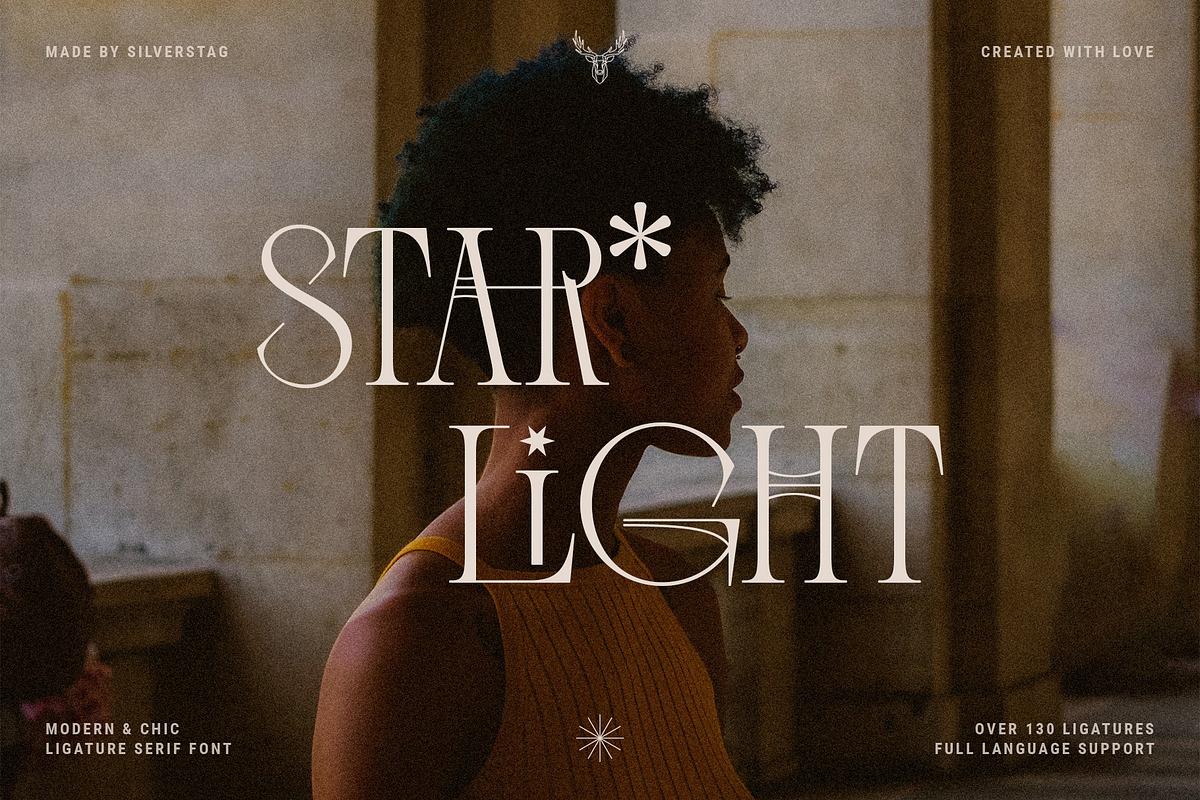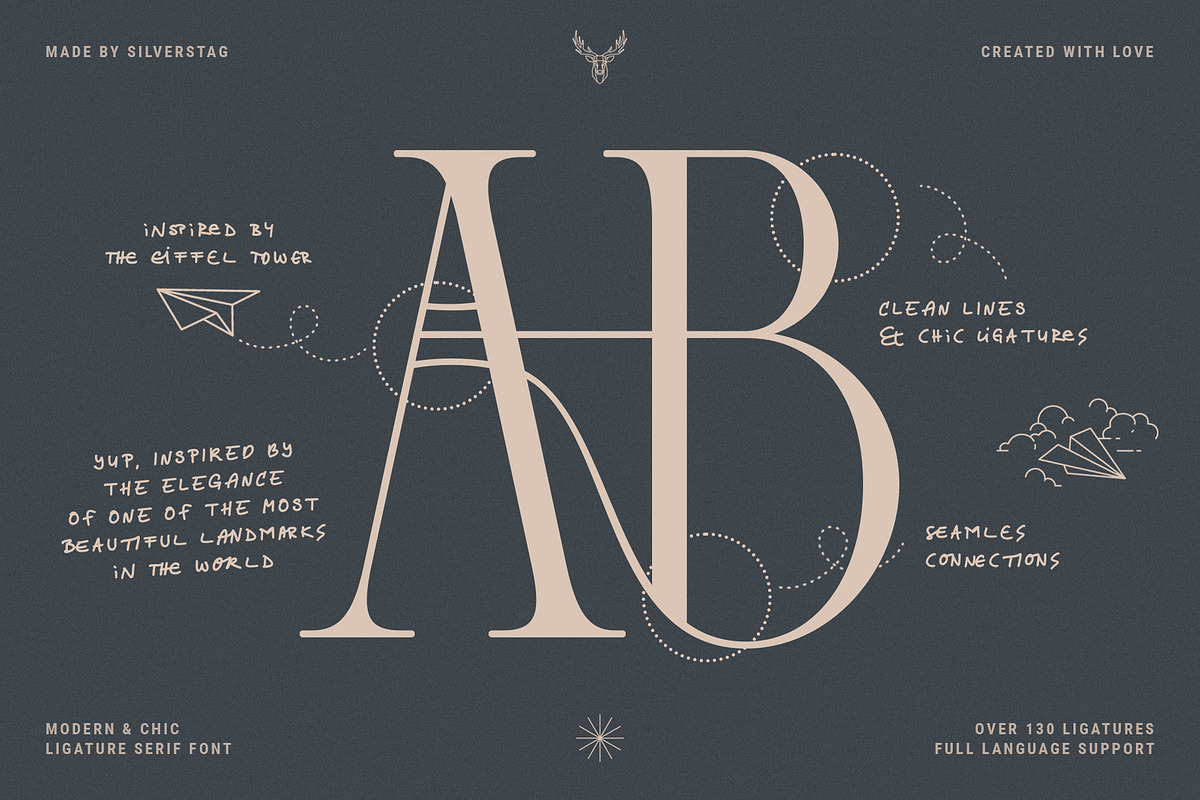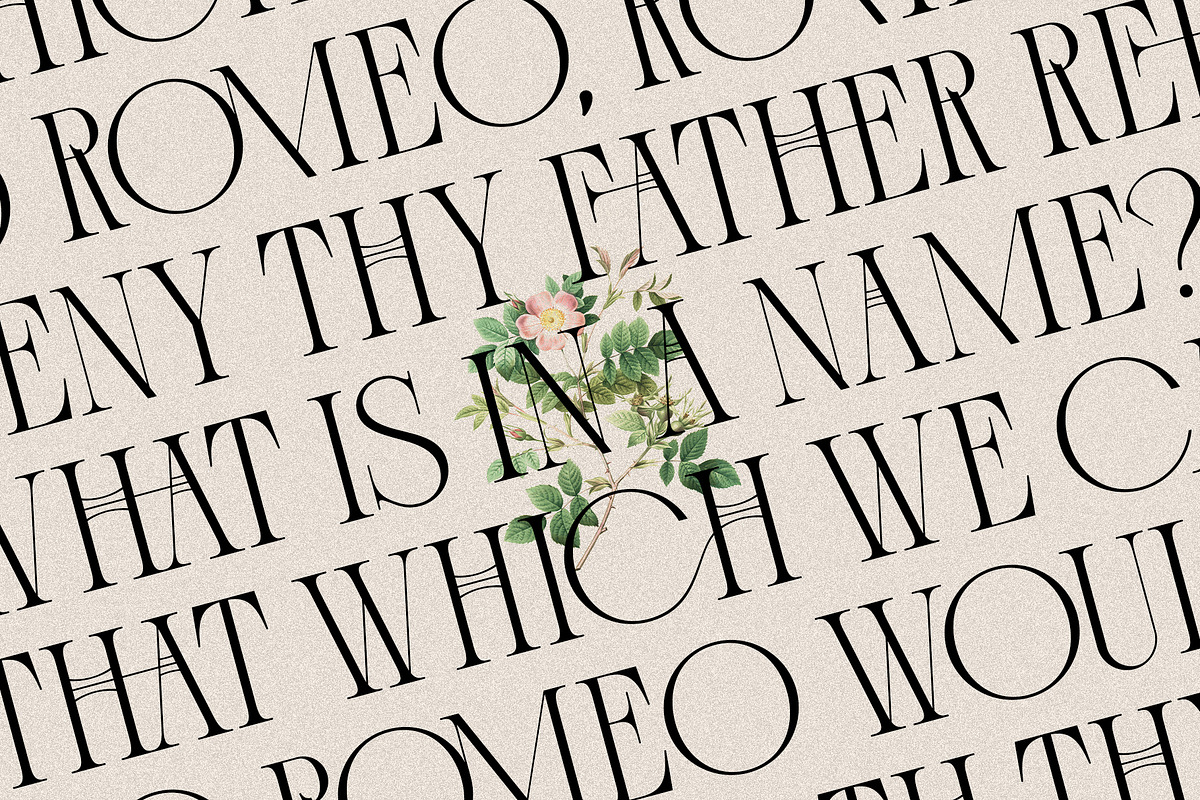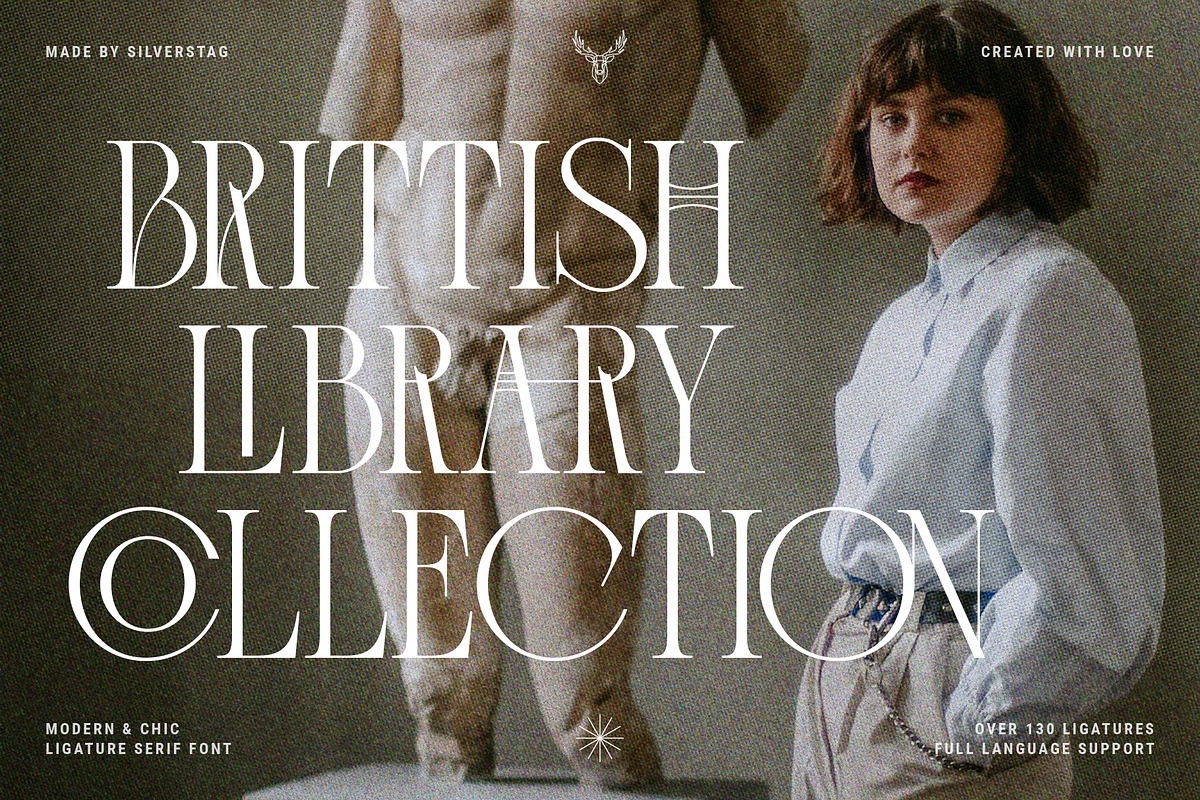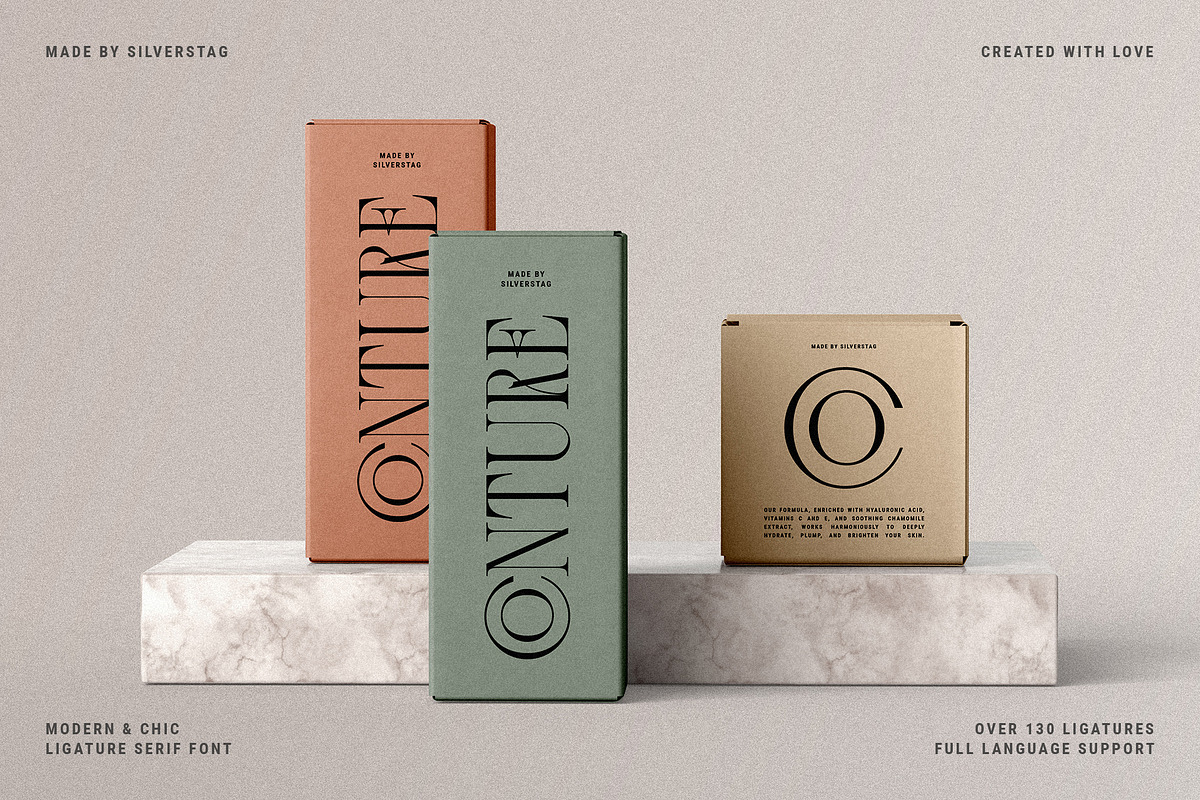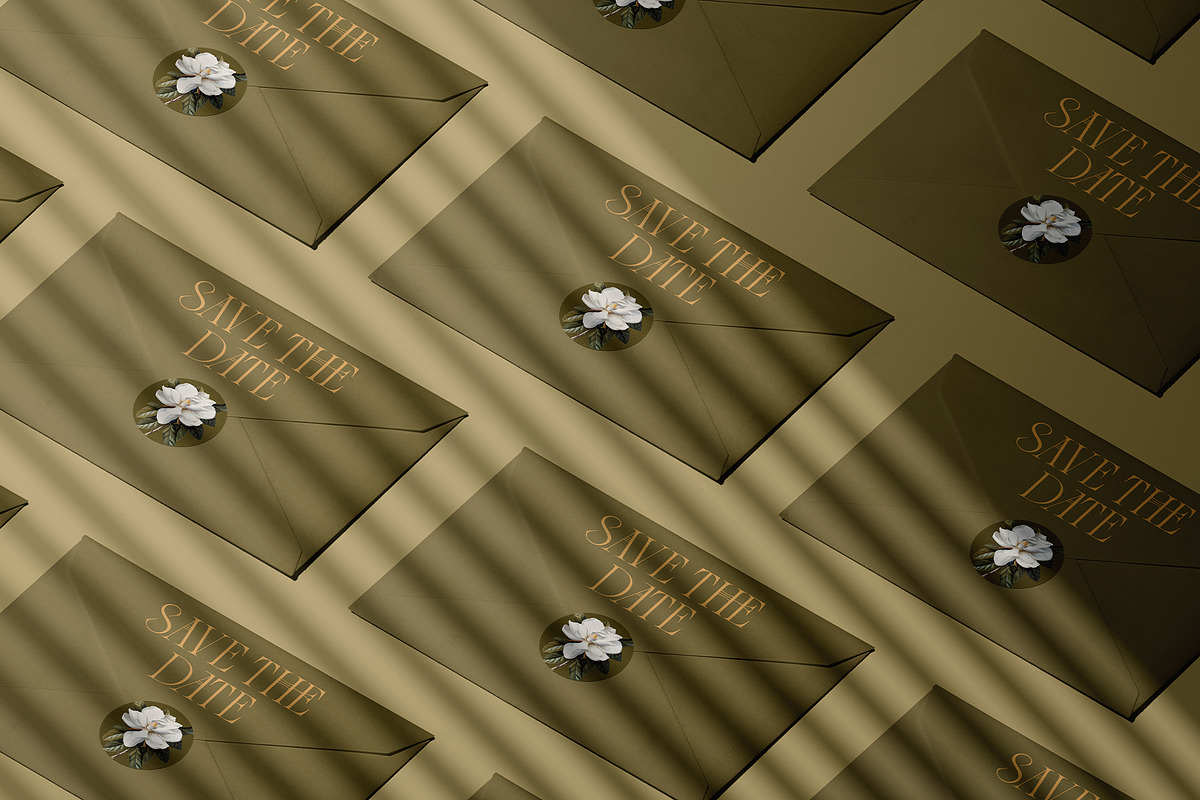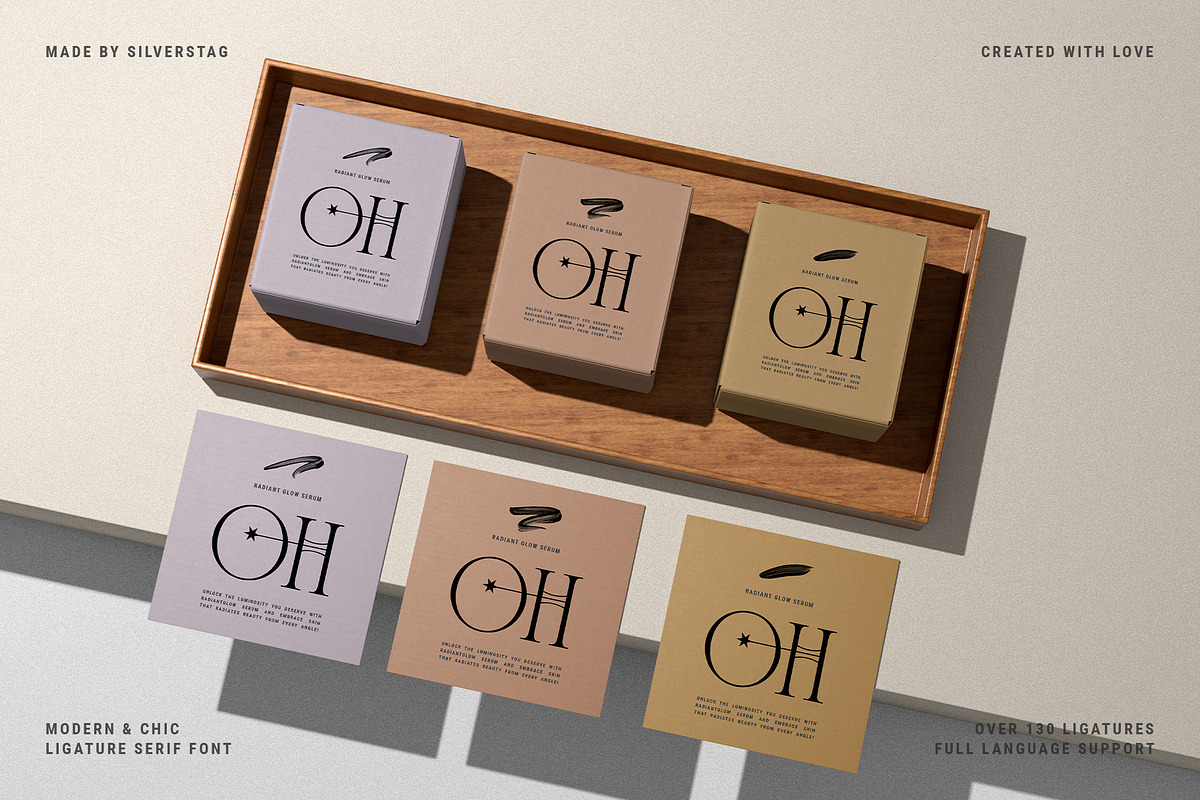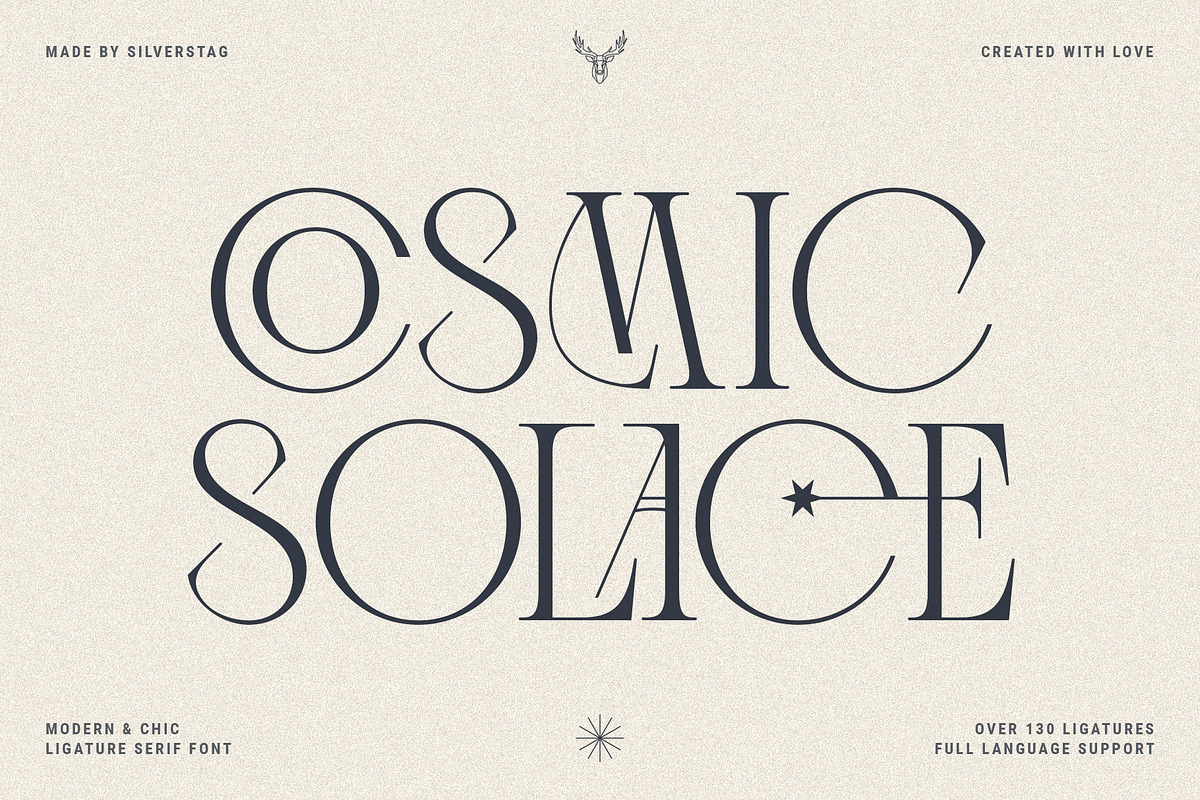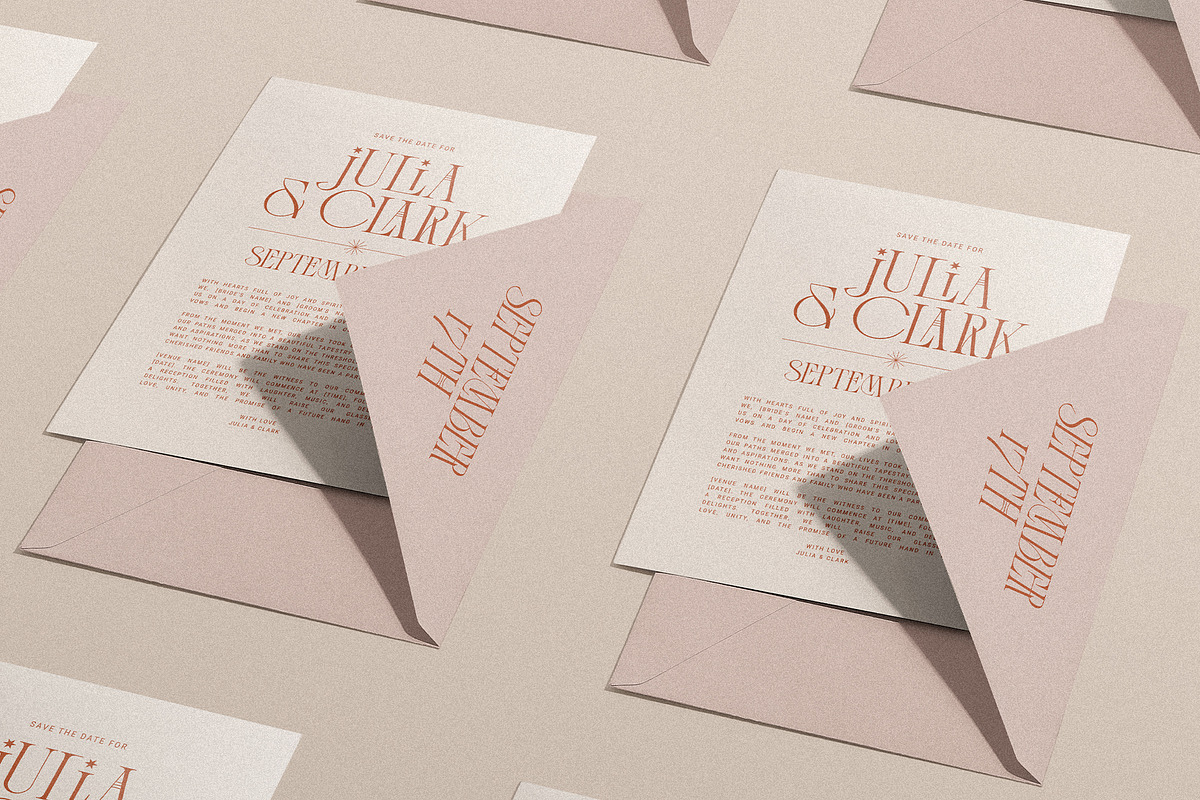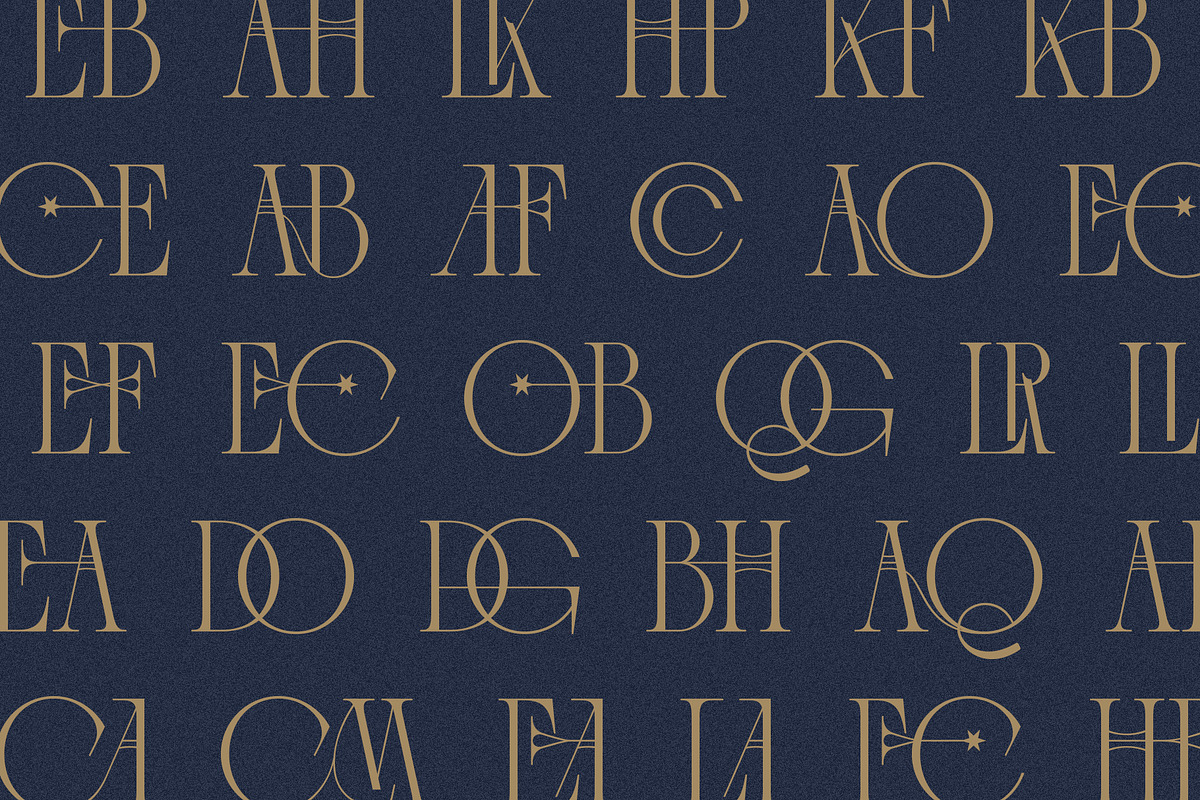
Cosmic Solace - Ligature Serif Font
Introducing Cosmic Solace, a timeless serif font that seamlessly marries the grace of the Eiffel Tower's architecture with the modernity of typography. With a touch of Parisian elegance, this font captures the essence of intricate ironwork and structural finesse, infusing your designs with an air of sophistication.
Crafted with meticulous attention to detail, Cosmic Solace boasts over 130 ligatures that effortlessly blend characters, lending your text a fluidity reminiscent of the tower's iron lattice. Its serifs are reminiscent of the Tower's stately columns, offering a harmonious balance between classic and contemporary design. This font is not only a homage to the iconic landmark but also an embodiment of its enduring charm, perfect for bringing a touch of refined grandeur to a wide range of creative projects.
Cosmic Solace is not confined by borders – its extensive language support ensures that your message can be conveyed with elegance across the globe. From editorial layouts to branding, from wedding invitations to product packaging, this font exudes a timeless allure that resonates with both history and innovation. Elevate your designs with Cosmic Solace and embark on a journey that transcends time, where the elegance of the Eiffel Tower meets the world of typography.
- Over 130 ligatures and alternate letters